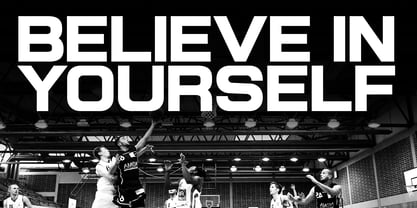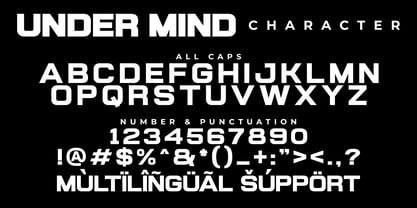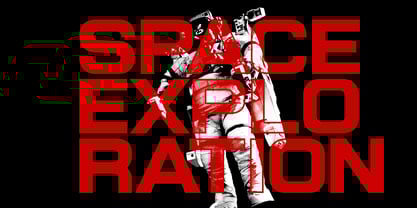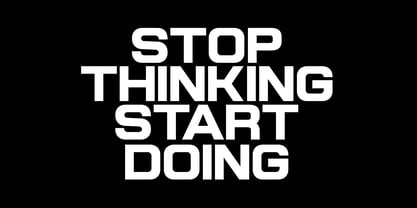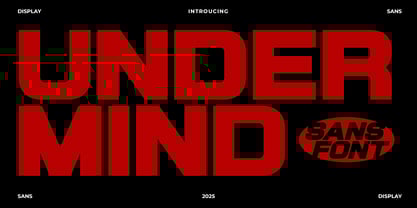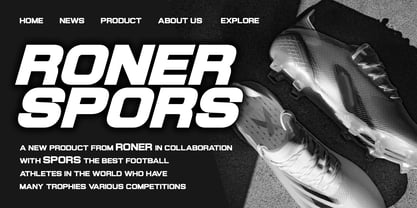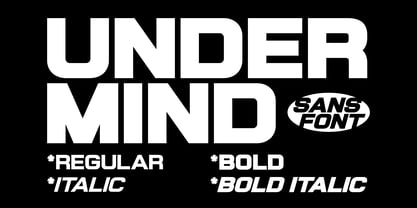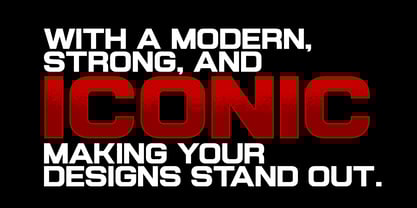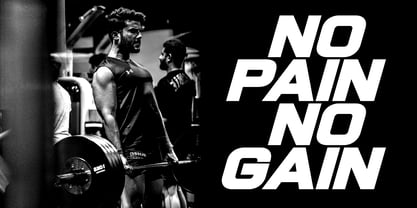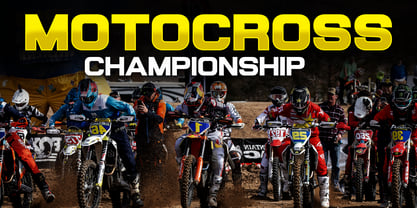
Under Mind Sans
The Under Mind Sans Font Family was designed by Mulia Yanto and published by Multype Studio. Under Mind Sans contains 4 styles and family package options. More about this family
UNDER MIND is a modern bold display font designed with strong geometric shapes and clean lines. Perfect for racing logos, sports branding, esports graphics, and athletic posters, this all-caps typeface brings a powerful and futuristic look to your design. UNDER MIND delivers a professional, dynamic, and confident visual impact. Ideal for high-energy design projects, performance branding, and modern typography layouts. What’s Included : All Caps, Numbers & Symbols, Works on PC / Mac, Simple installations, Accessible in the (Adobe Illustrator, Adobe Photoshop, Adobe InDesign, even work on Microsoft Word, PUA Encoded Characters), Fully accessible without additional design software, Multilingual support Thank you for your purchase! Hope you enjoy with our font!
Under Mind Sans